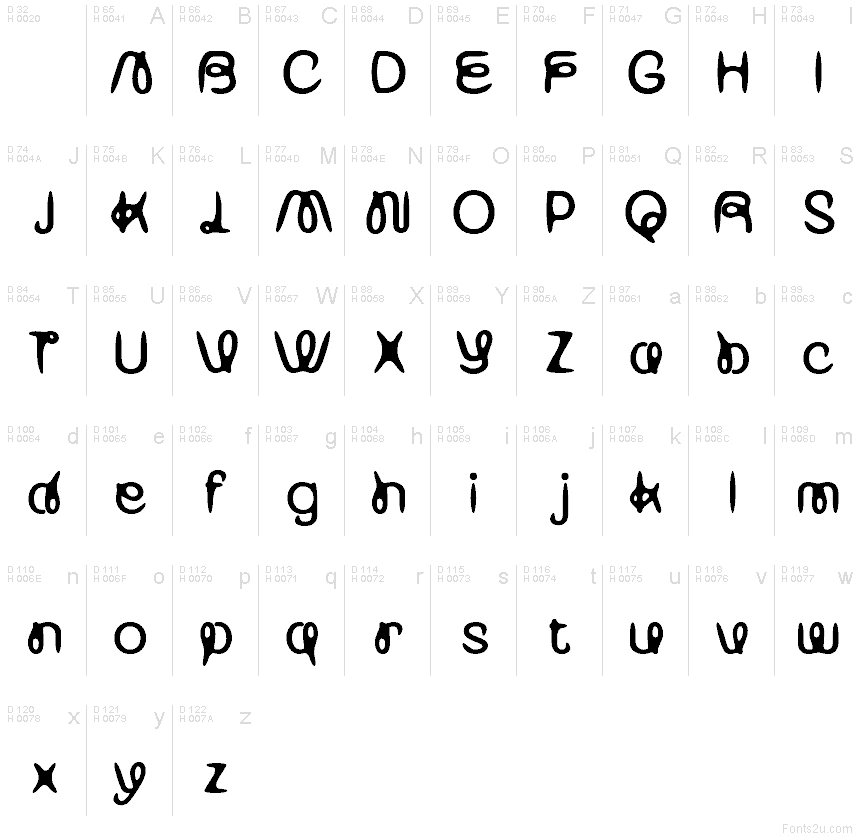
CSBeliaDrawn-Regular Demo
CS Belia Drawn font by Craft Supply Co. is a free display font combining abstract shapes and fluid design into an unconventional and expressive whole. An organic and avant-garde styling will delight those who enjoy experimenting with art and typography for new, dynamic designs.
The most compelling use cases for this product are posters, brochures, magazine covers, music album/art events branding, clothing labels / tags & packaging design where one may desire to lend an artistic flair that comes naturally as part of the typeface's interesting overall style.
CS Belia Drawn Demo